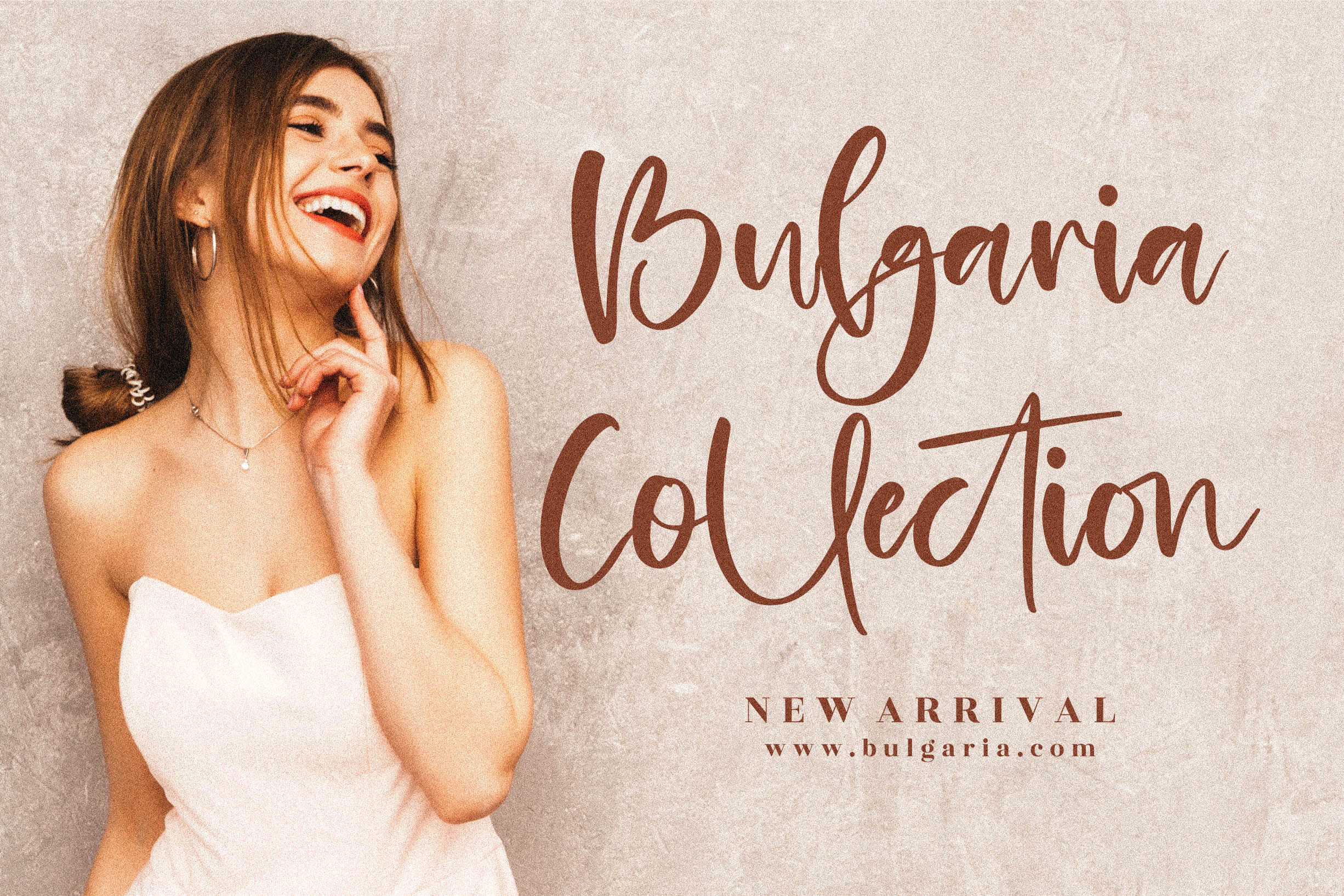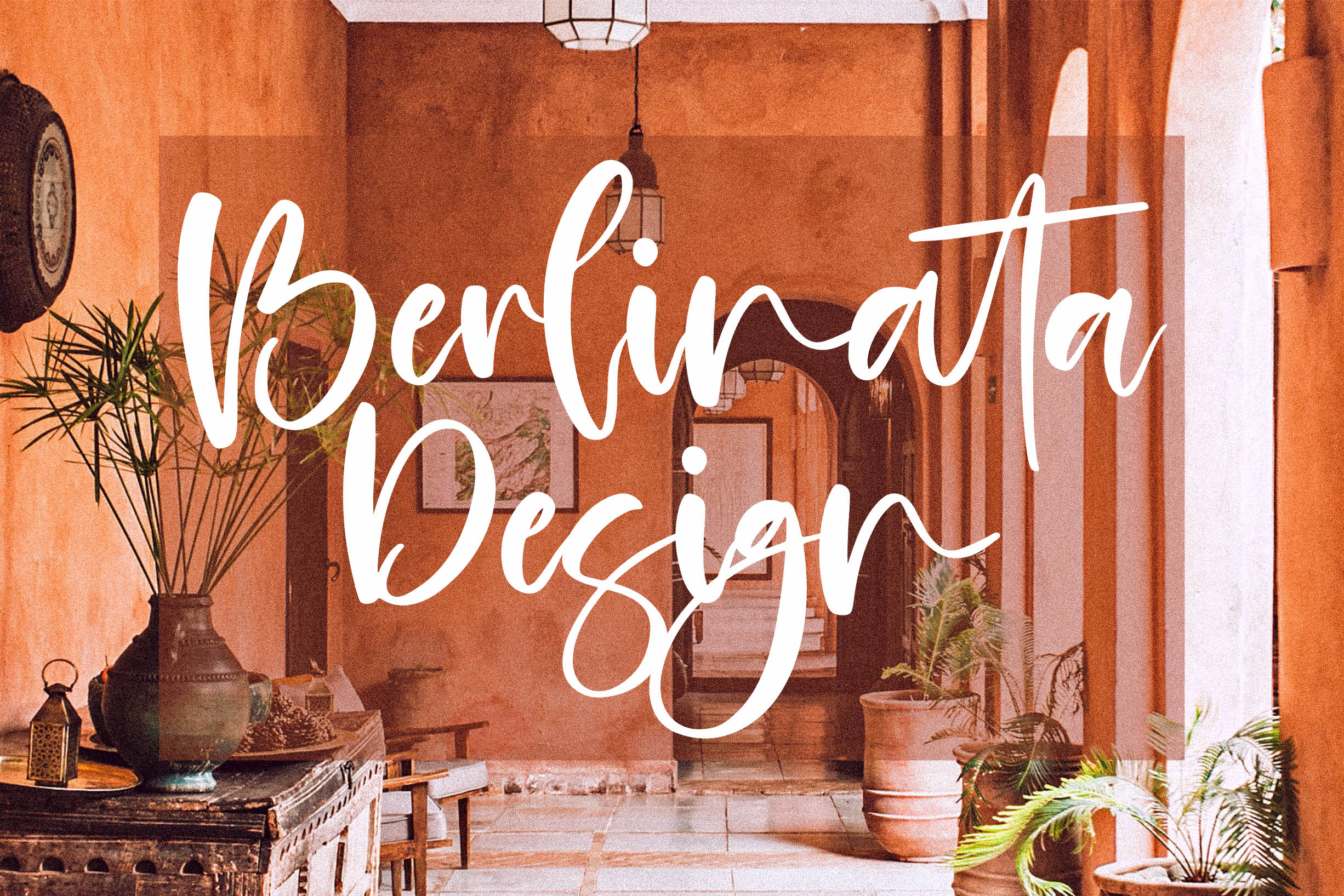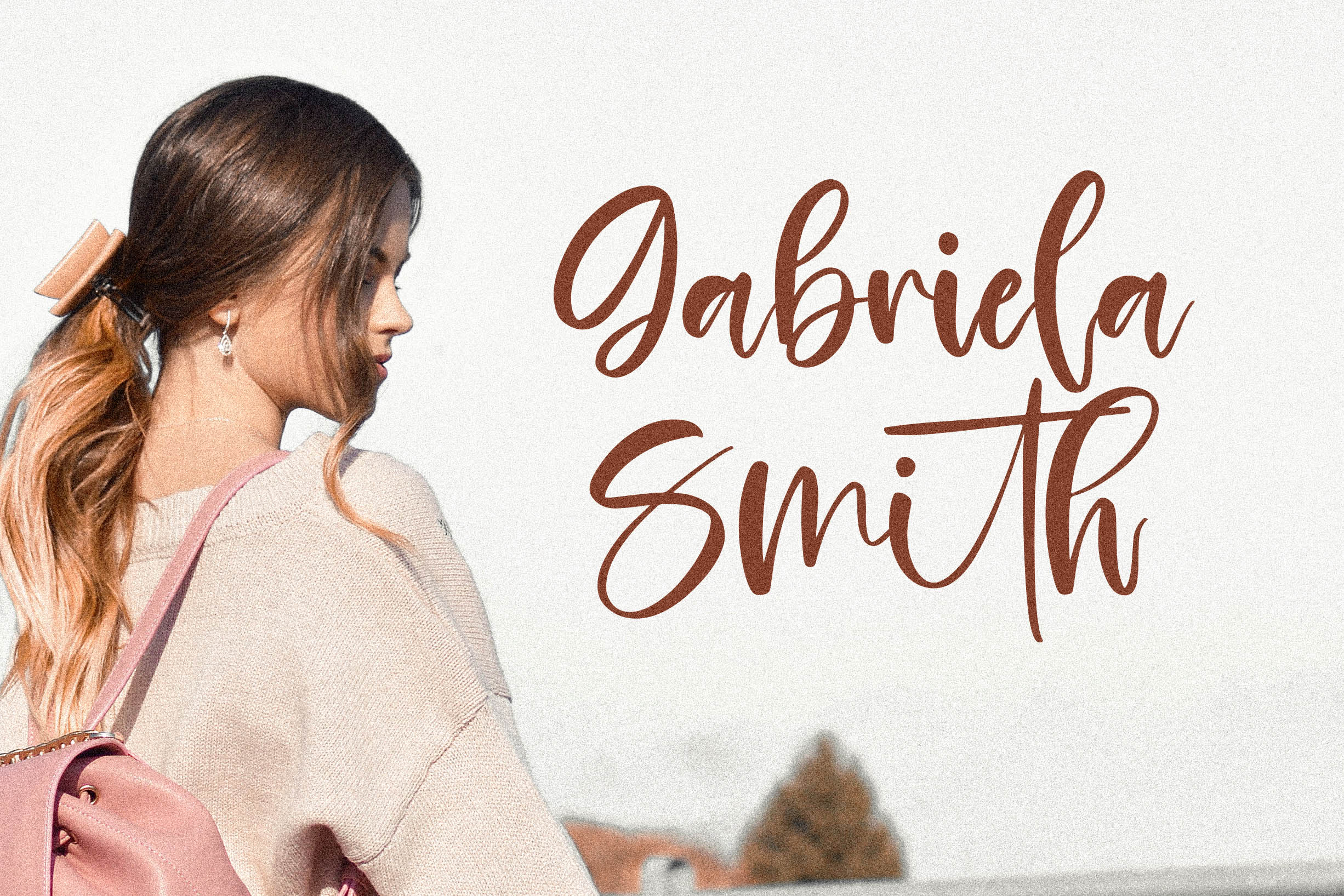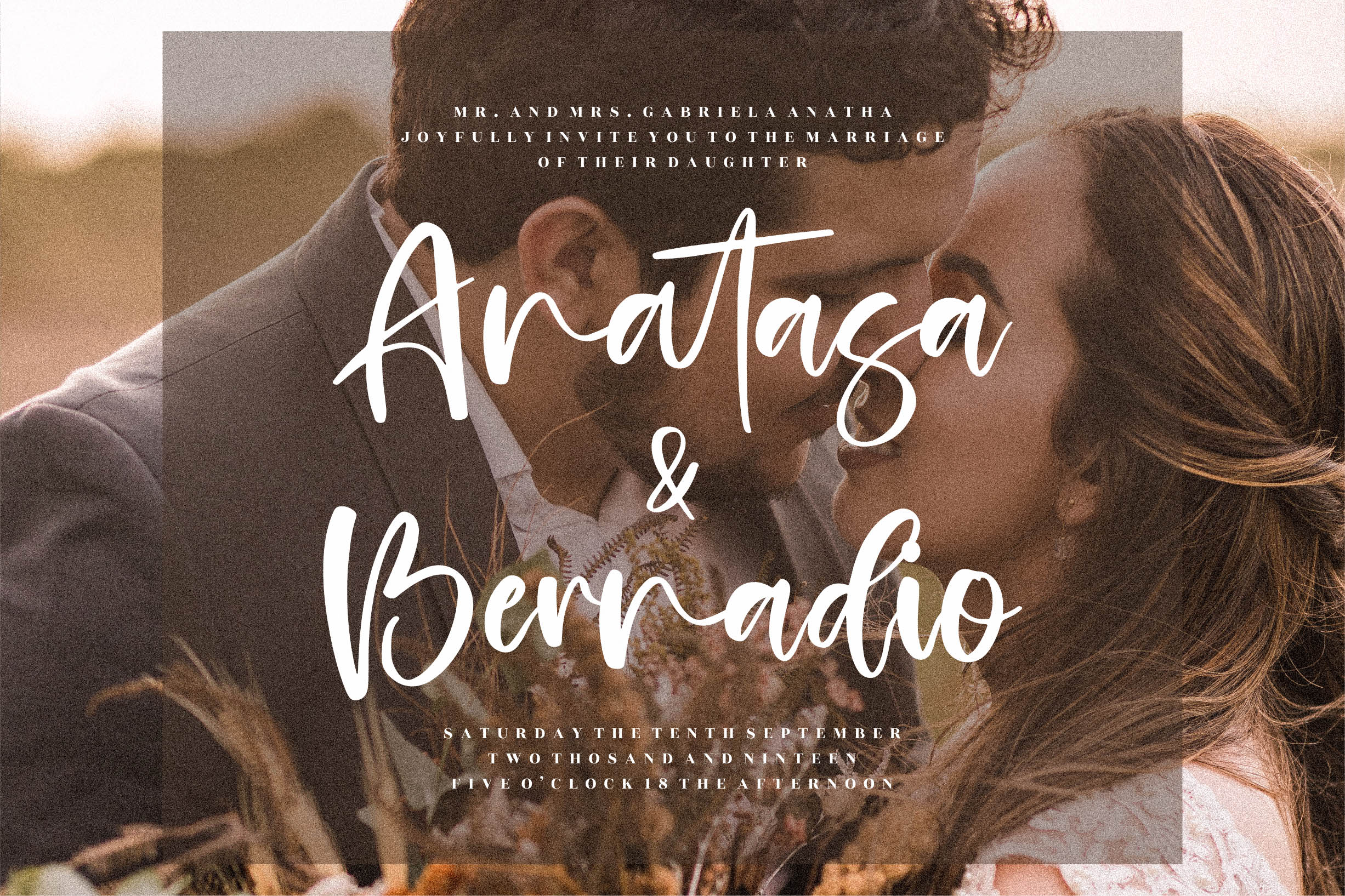
Brilliant Castelo Font
Brilliant Castelo Script Font
This is a handwritten font, suitable for any projects such as: logos, branding projects, homeware designs, product packaging, mugs, quotes, posters, shopping bags, t-shirts, book covers, name card, invitation cards, greeting cards, label, photography, watermark, special events, and all your other luxury projects that need a handwritten taste.